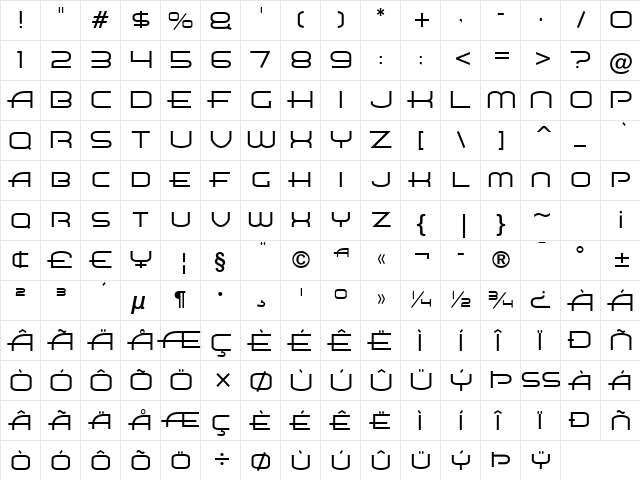
Air Flow BTN Lt Regular
Design Context for Air Flow BTN Lt Typeface
Air Flow BTN Lt is a composed and adaptable typeface that performs quietly and consistently across a wide range of design contexts. The delicate stroke weight brings airiness and refinement to layouts.
Pro Tip: Use Air Flow BTN Lt in both headline and body roles to test its range before committing to a single application.